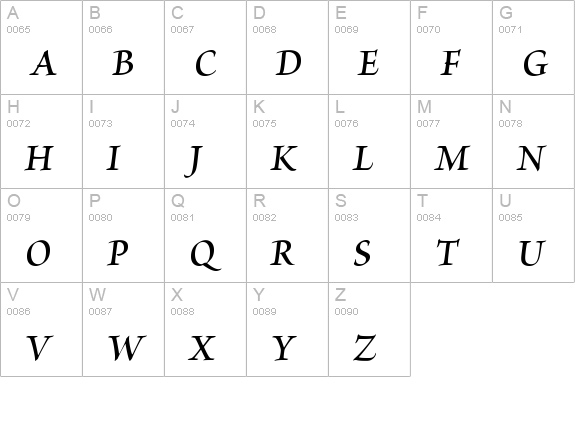
Brioso Pro Semibold Italic Subhead Font Details
Brioso Pro Semibold Italic Subhead is a sub-bold, structured, italic variant in the Brioso typeface family \xE2\x80\x94 well suited to sub-headlines and emphasised passages.
Introducing Brioso Pro Semibold Italic Subhead font, a versatile and elegant typeface that exudes sophistication and modernity. With its bold yet graceful design, this font is perfect for creating eye-catching subheadings that demand attention. The sleek curves and refined details of Brioso Pro Semibold Italic Subhead font make it a standout choice for any design project. Best of all, this exceptional font is available for free download at FontsMarket.com. Whether you're working on a branding project, editorial layout, or website design, Brioso Pro Semibold Italic Subhead font will elevate your work to new heights. Don't miss out on the opportunity to enhance your designs with this exquisite typeface - download it for free today!